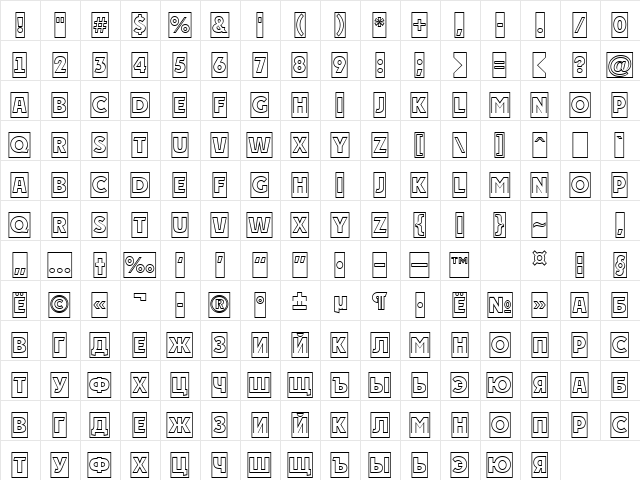
a_PlakatTitulCmOtl Regular Font Preview
a_PlakatTitulCmOtl Regular
Design Context for a_PlakatTitulCmOtl Typeface
a_PlakatTitulCmOtl offers clean, dependable letterforms without strong stylistic allegiance, making it a practical choice for designers who need flexibility.